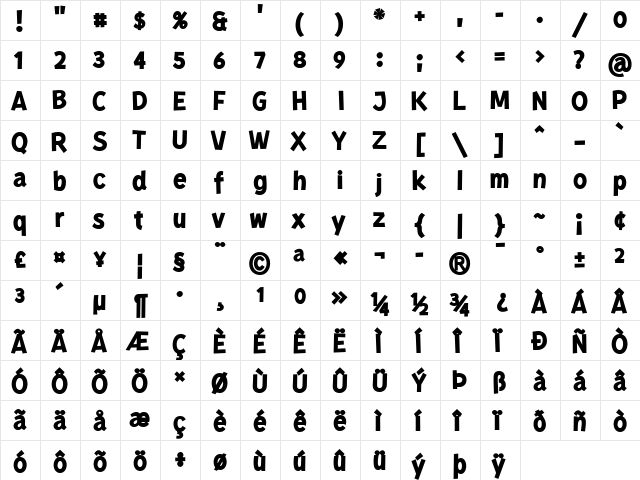
Kurri Island Bold Font Preview
Kurri Island Bold
Kurri Island Bold Font Details
| Foundry | Mans Greback |
| Designer | Mans Greback |
Design Context for Kurri Island Typeface
Kurri Island offers clean, dependable letterforms without strong stylistic allegiance, making it a practical choice for designers who need flexibility. The heavy weight commands attention and anchors typographic hierarchies.